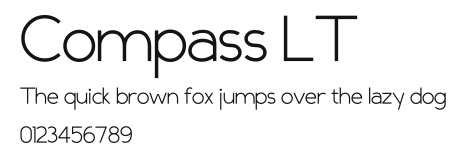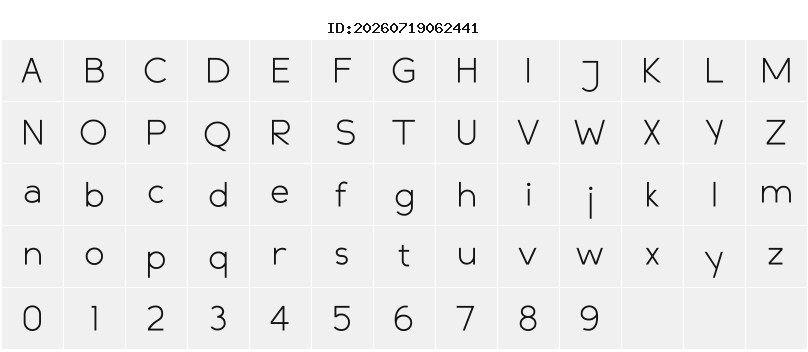
Compass LT Preview
• Font Name: Compass LT
• Full Font Name: Compass LT
• PostScript Name: CompassLight
About Compass LT.ttf
Compass LT.ttf is a modern, elegant sans-serif font designed for ultimate readability and visual harmony. Perfect for branding, headlines, web design, and print materials.